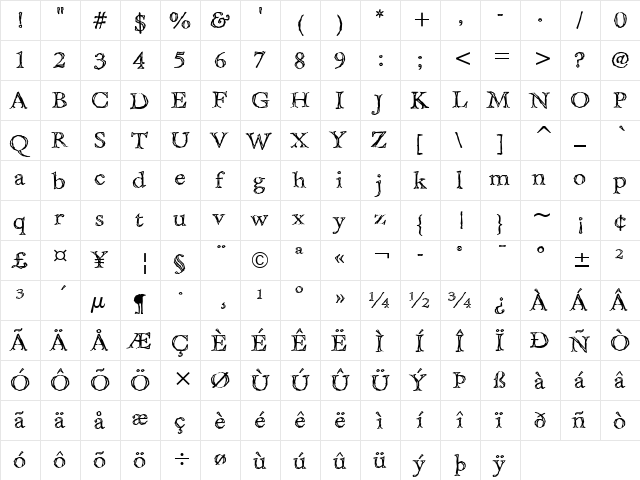
Eastwood ITC Medium
| Foundry | International Typeface Corporation |
Design Context for Eastwood ITC Typeface
Eastwood ITC echoes the hand-painted signage and woodblock typography of the American frontier, with a warm, rugged personality.
Perfect for barbecue restaurants, country music branding, vintage poster design, and rustic packaging.
Font Pairing: Combine Eastwood ITC with a simple slab or neutral sans — period-accurate companions reinforce the vintage feel without competing for attention.
Pro Tip: Pair Eastwood ITC with aged textures or distressed backgrounds to amplify its vintage personality.